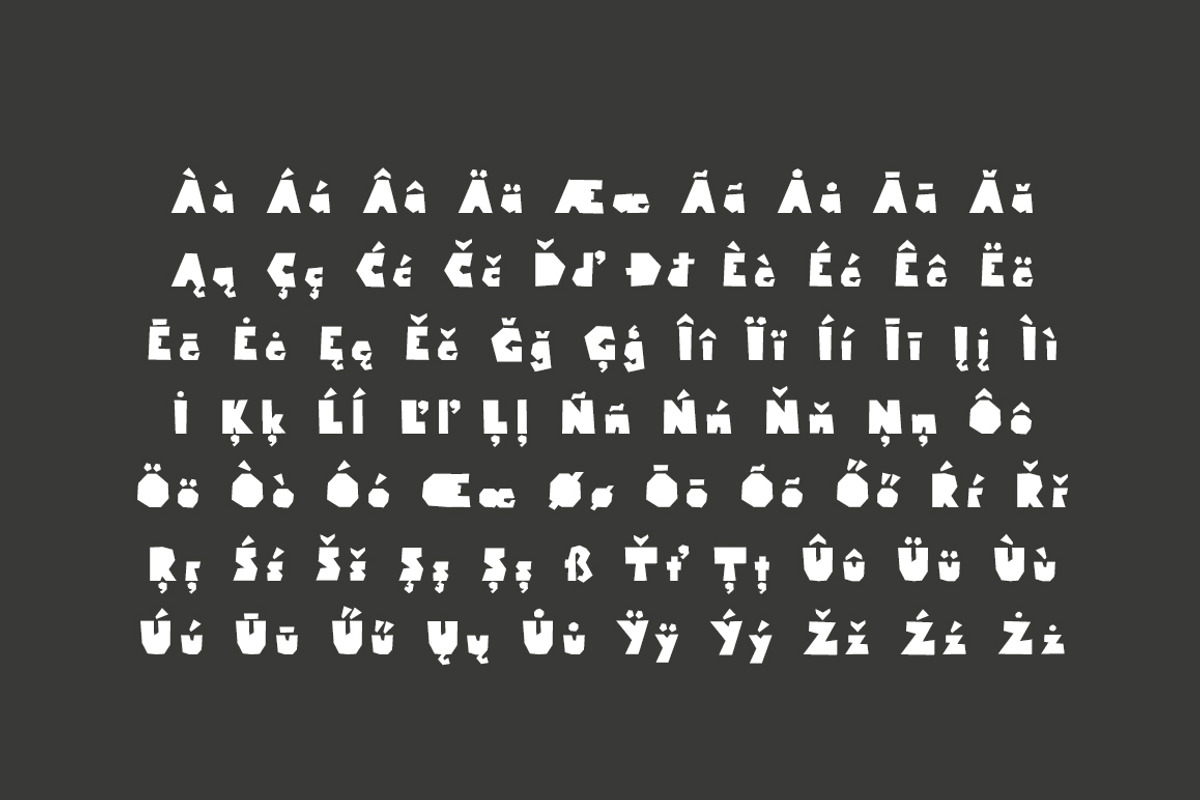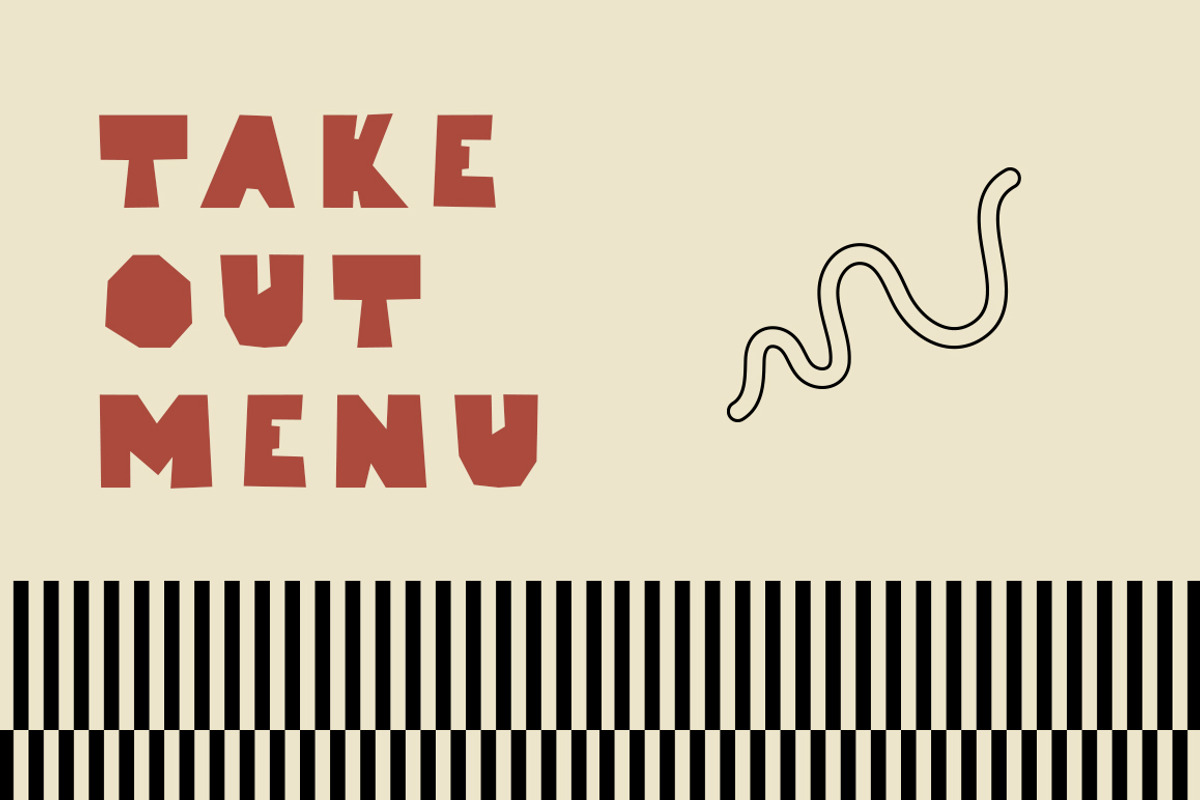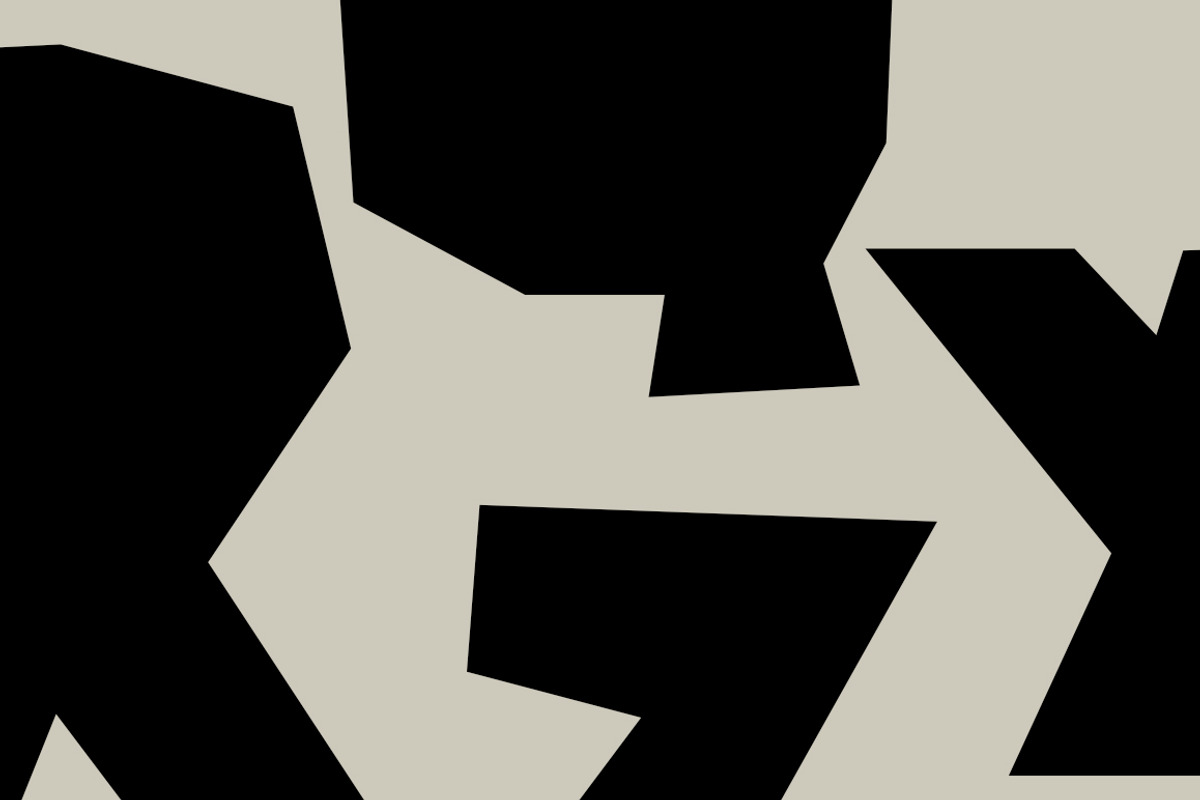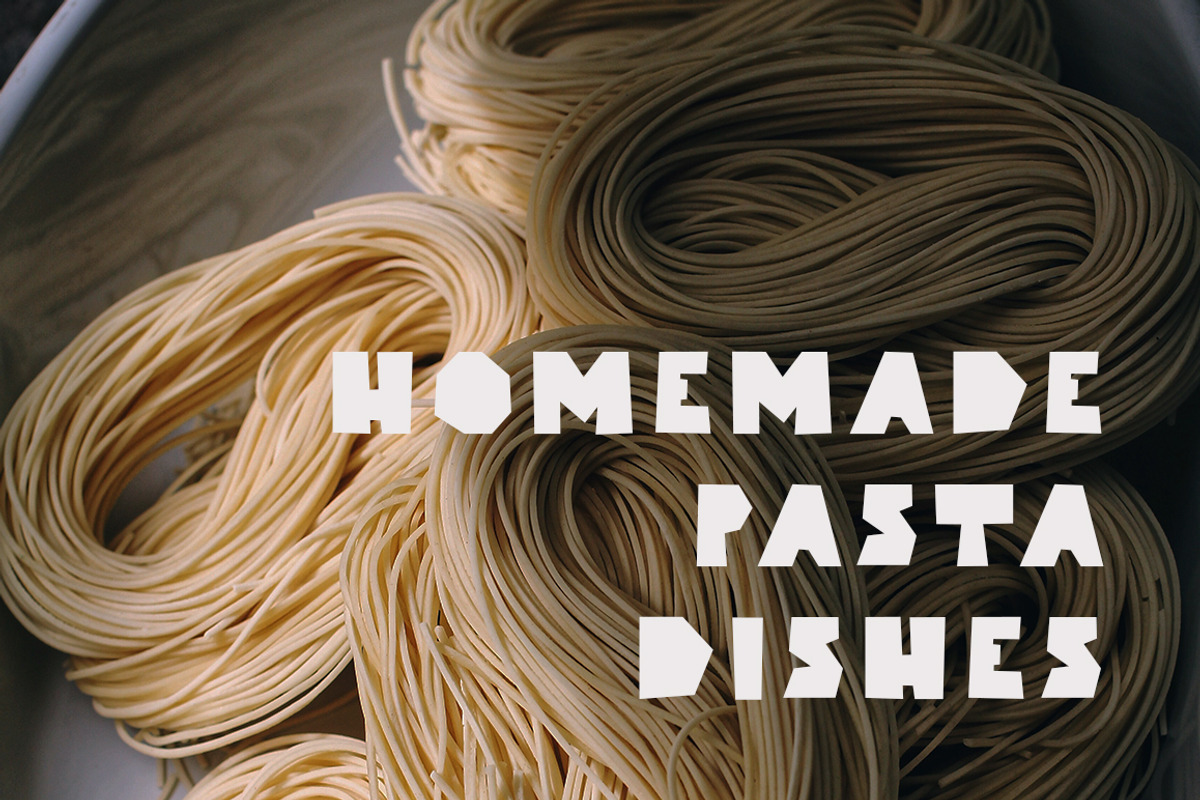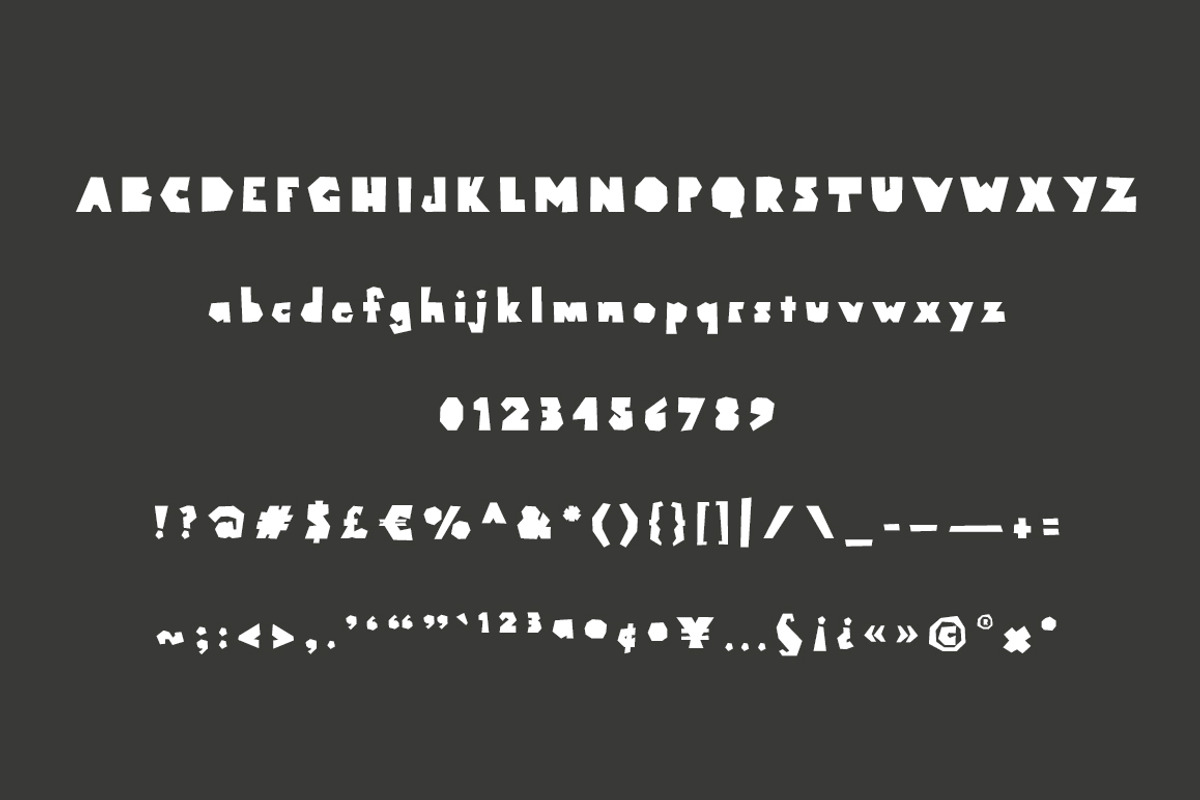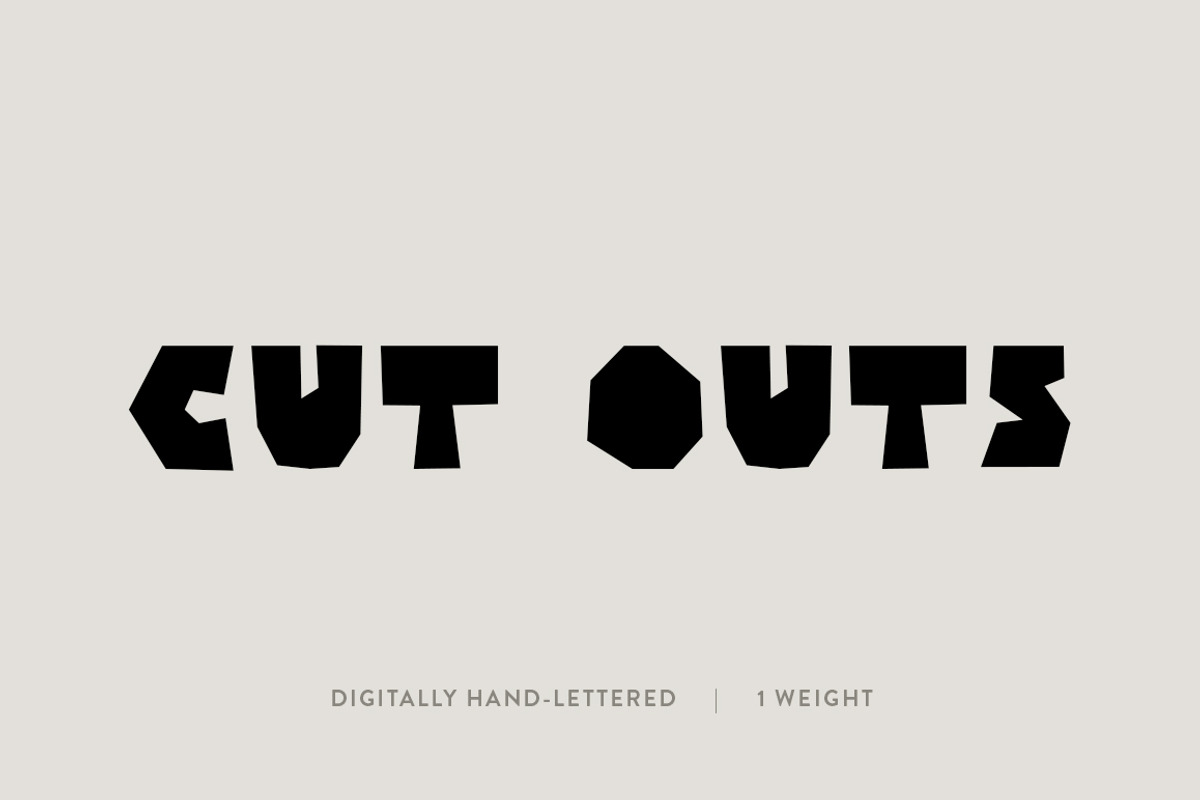
Cut Outs: A Sharp Edged Font
The Cut Outs Font
Cut Outs embodies all that is quirky and playful. The font creates a bold look using inspiration from hand-cut paper shapes. With its simple feel and touch of organic, this font is meant to be versatile. It is perfect for all projects that need anything from a naturally bold look to a unique eye-catching style.
This font was created digitally by hand. Enjoy!